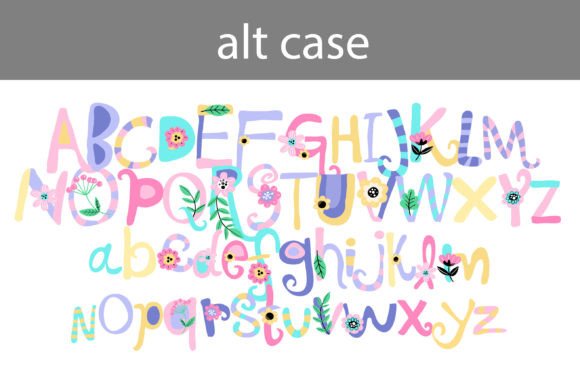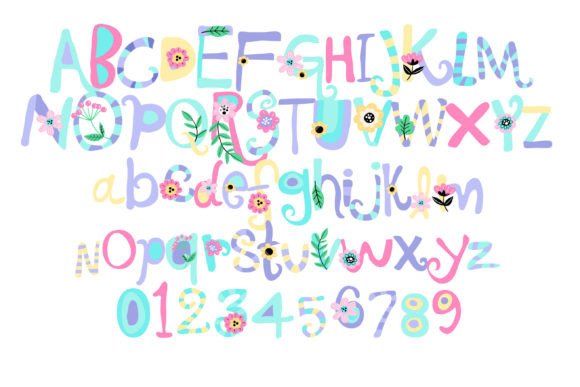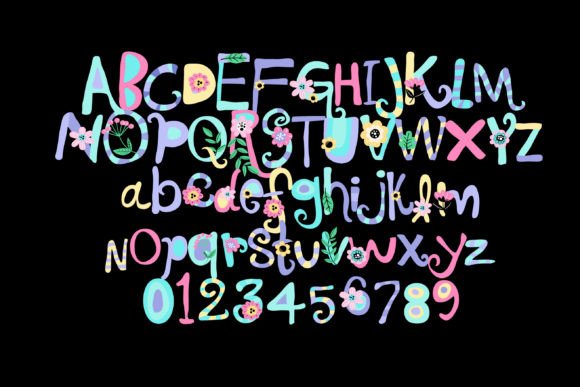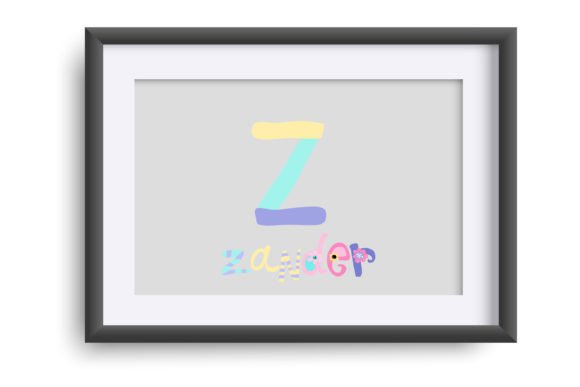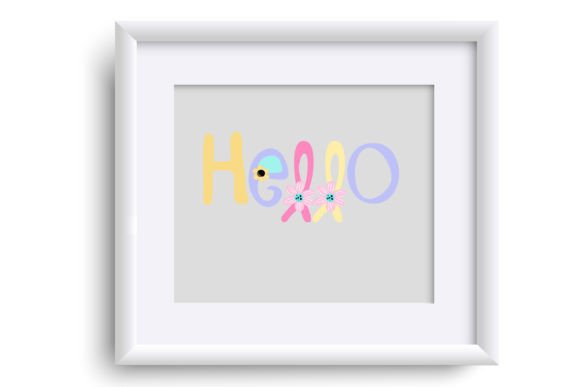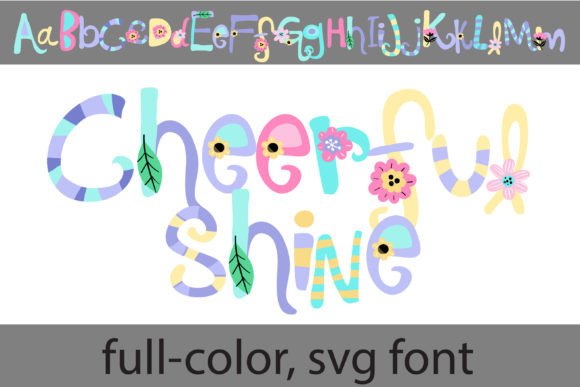
Introducing Cheerful Shine Font: Elevate Your Designs with Whimsical Florals
Are you tired of using the same old fonts for your designs? Look no further! Cheerful Shine Font is here to add a touch of personality to your creations. This stunning full-color font features beautiful florals on a whimsical, pastel-colored background, perfect for making your designs stand out.
What Makes Cheerful Shine Font Special?
Cheerful Shine Font is not your average font. It’s an OpenType full-color (SVG) font, which means it can be installed and used just like any normal .otf font. The best part? It comes with an alternative case that offers additional colors, accessible through your system or Silhouette’s glyph map. This means you have a wide range of colors and styles to choose from, giving you the freedom to create anything from simple text logos to complex illustrations.
With Cheerful Shine Font, the design possibilities are endless. You can use it to create:
• Simple text logos with a pop of color
• Complex illustrations with intricate details
• Whimsical stationery and invitations
• Vibrant social media graphics and posts
The font’s full range of colors and styles gives you the flexibility to experiment and try out new ideas. Whether you’re a designer, crafter, or DIY enthusiast, Cheerful Shine Font is the perfect addition to your creative toolkit.
Cheerful Shine Font is a game-changer for designers and crafters looking to add a touch of personality to their creations. With its beautiful florals, whimsical pastel colors, and endless design possibilities, this full-color font is sure to become a favorite in your creative toolkit. So why wait? Download Cheerful Shine Font today and start shining up your designs!